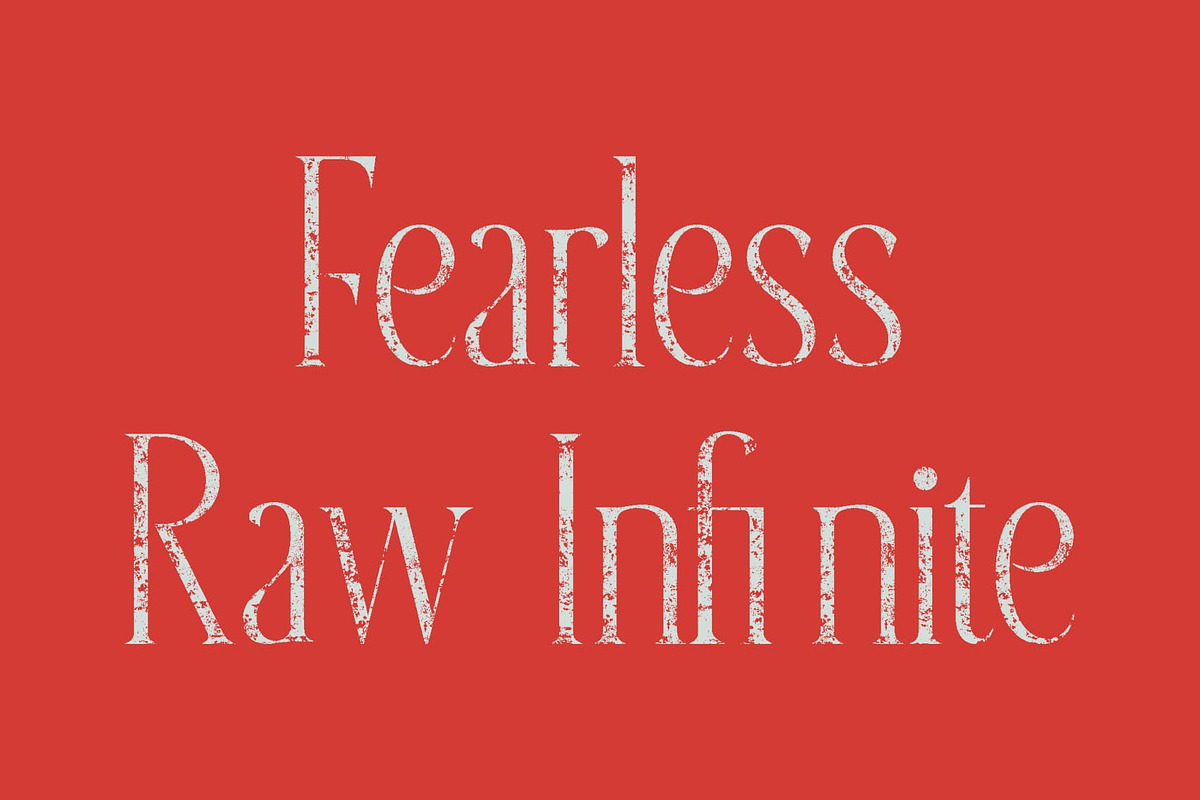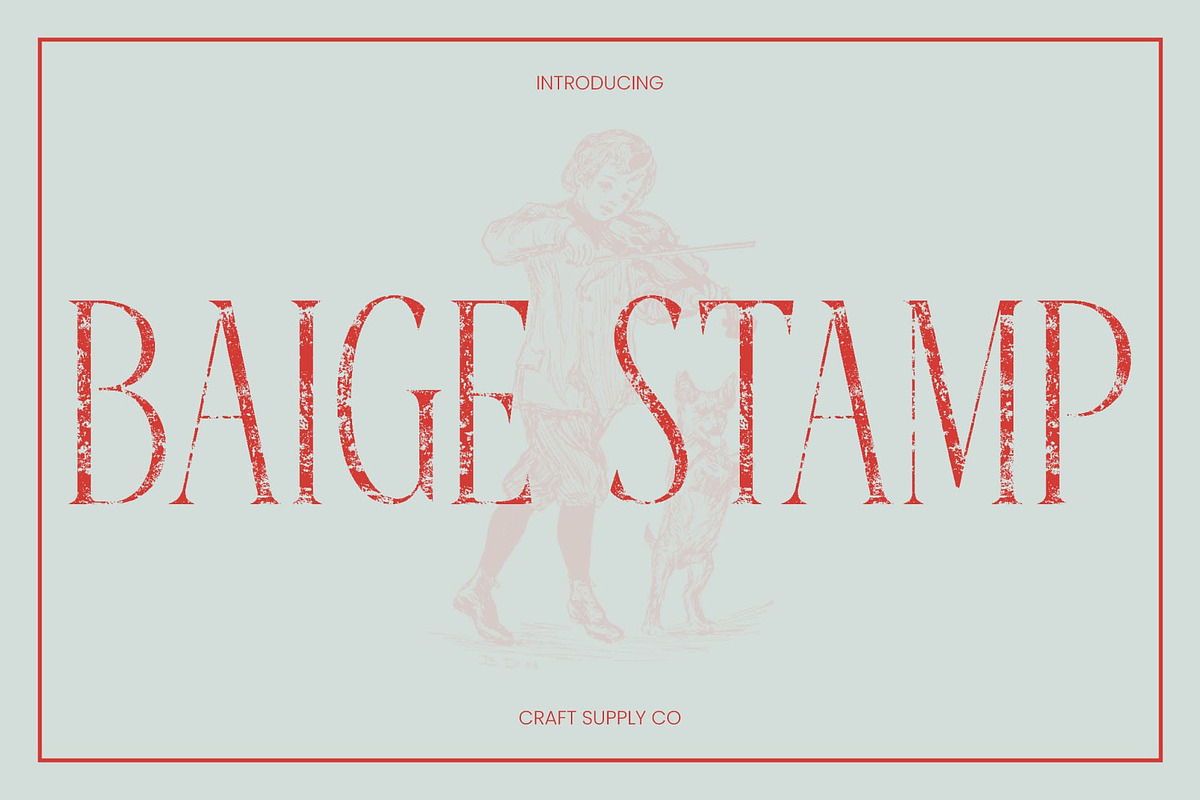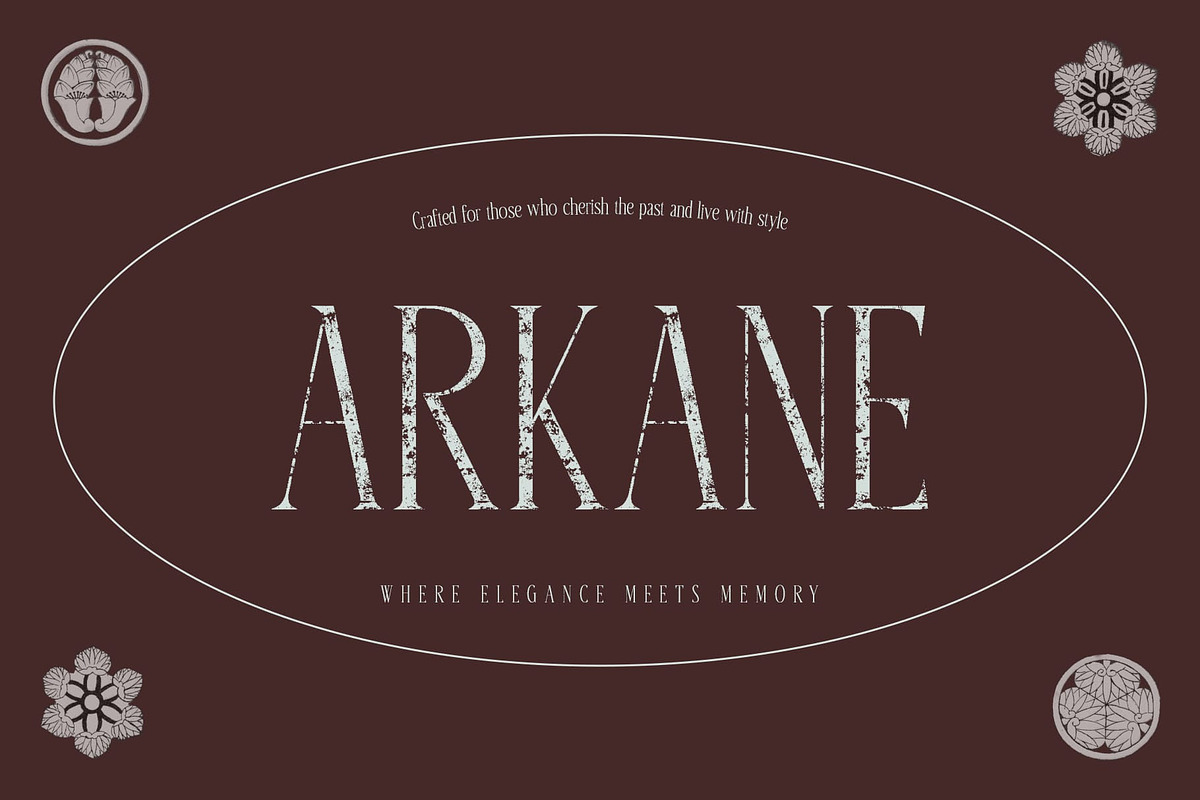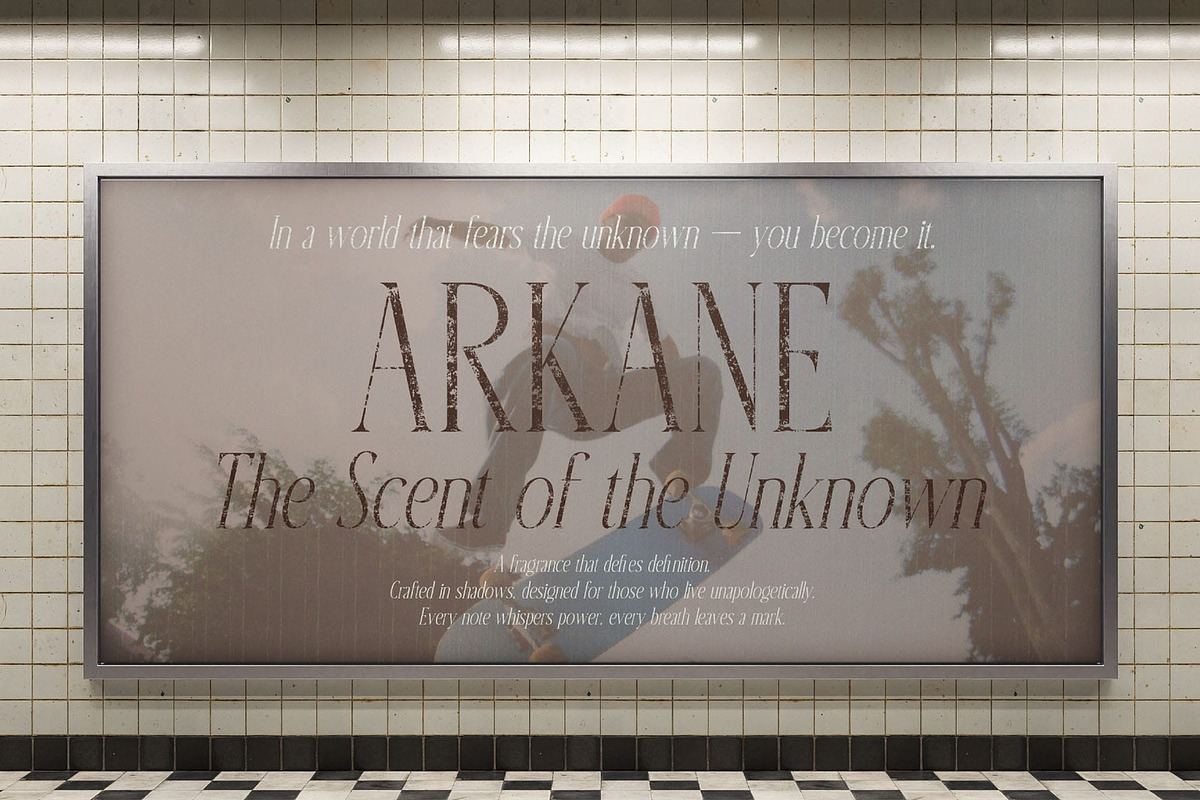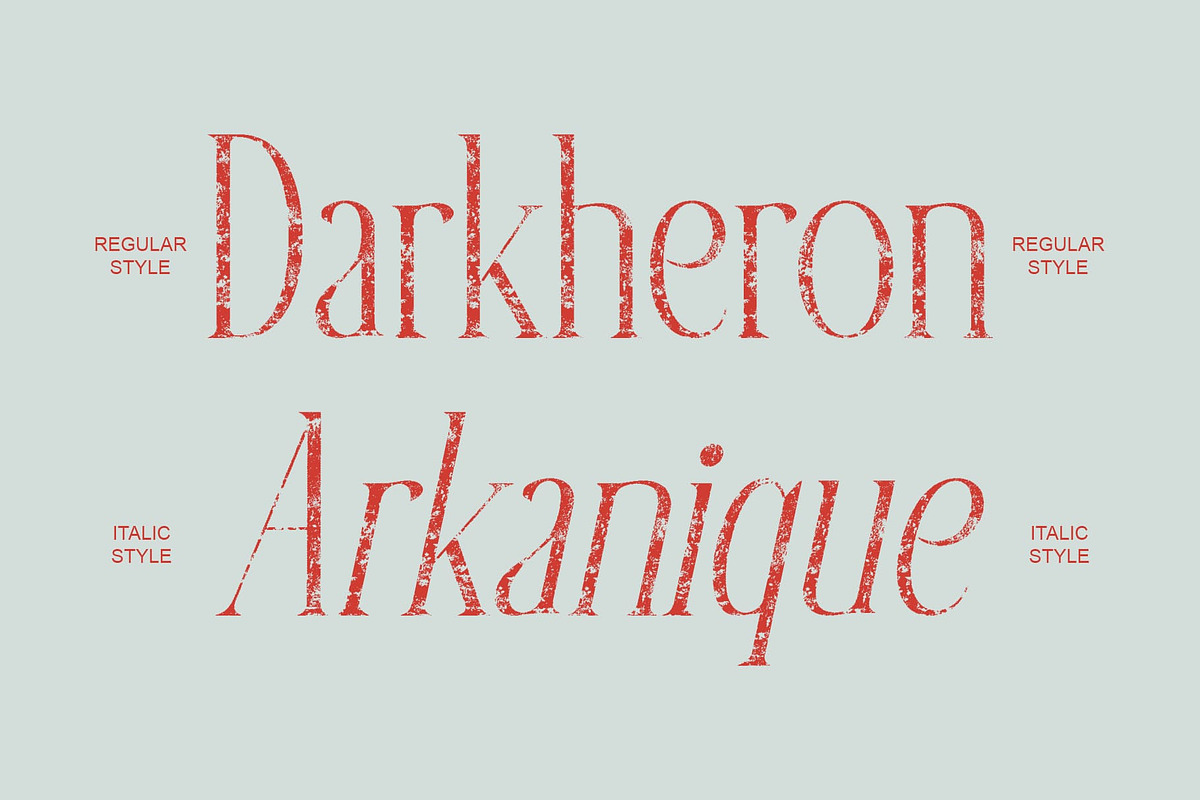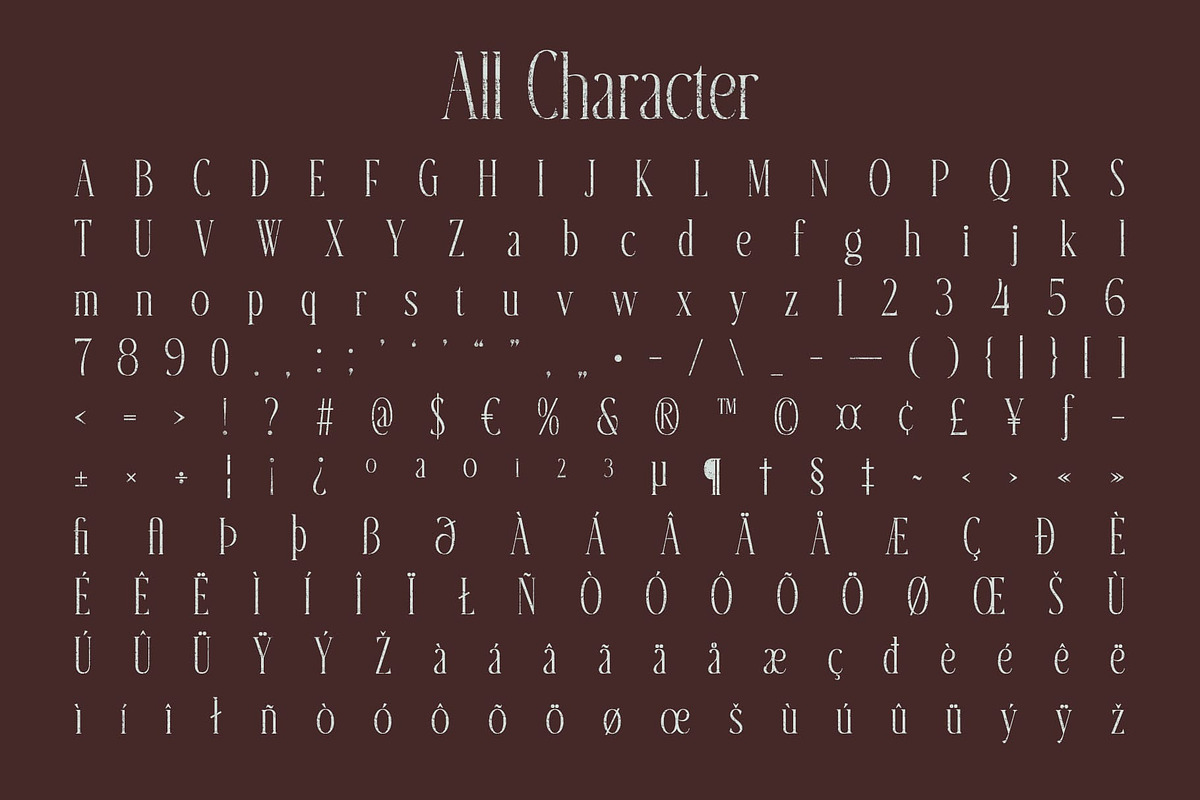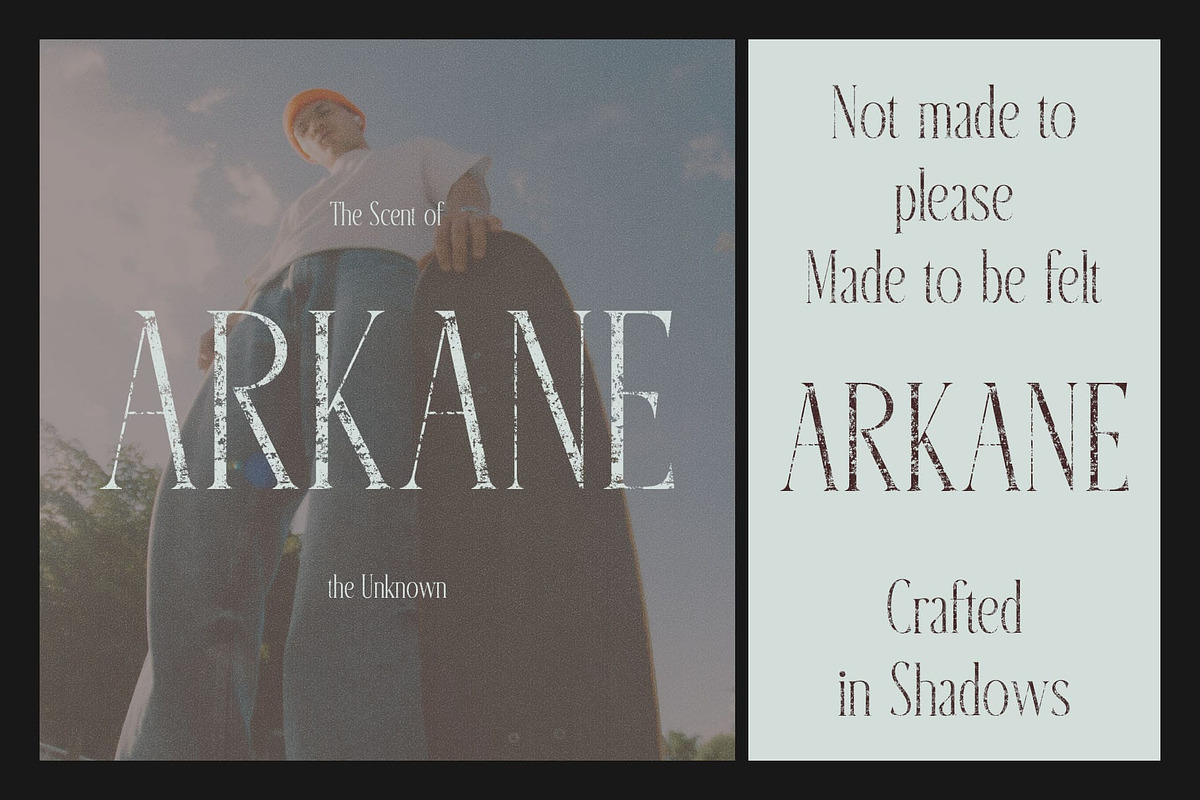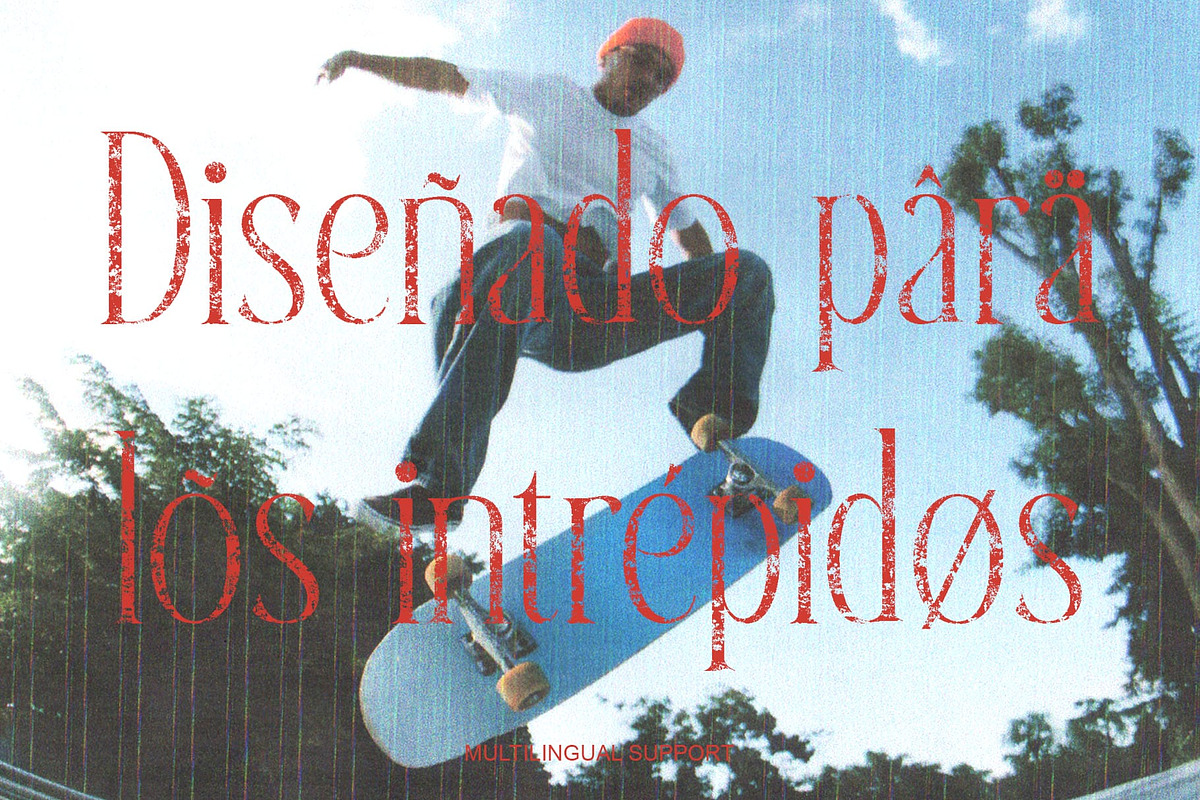
Baige Stamp
Baige Stamp – Modern Classic Serif with Vintage Texture
Timeless Serif with Modern Refinement This is a modern classic serif font that combines long, slender serifs with a clean and contemporary structure, resulting in a font that feels both timeless and sophisticated. Its refined proportions and balanced spacing make it ideal for designers seeking elegance with a touch of personality, perfect for editorials, luxury branding, and refined packaging design.
Stamp Effect for Vintage Authenticity What sets apart is its subtle stamp texture, which introduces a handcrafted, vintage quality to each character. This detail adds depth and warmth, softening the clean lines of the serif form and giving the typeface a tactile, lived-in feel. The result is a perfect harmony between modern sophistication and retro artistry.
Versatile for High-End and Creative Designs This font’s combination of sleek structure and textured finish makes it an excellent choice for a wide range of applications from fashion look books and poster headlines to branding materials and luxury logos. It adapts beautifully to both minimal layouts and expressive compositions, maintaining readability while adding visual charm.
A Blend of Grace and Character With its classic foundation, contemporary elegance, and vintage texture, embodies refined craftsmanship. It’s a font that bridges eras ideal for designers who want to evoke sophistication, authenticity, and a high-end artistic touch in every project.